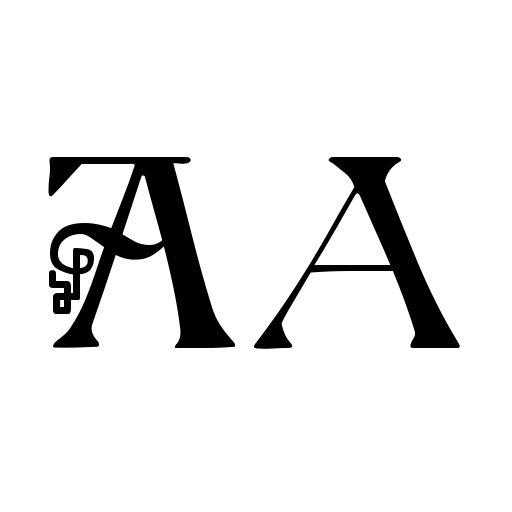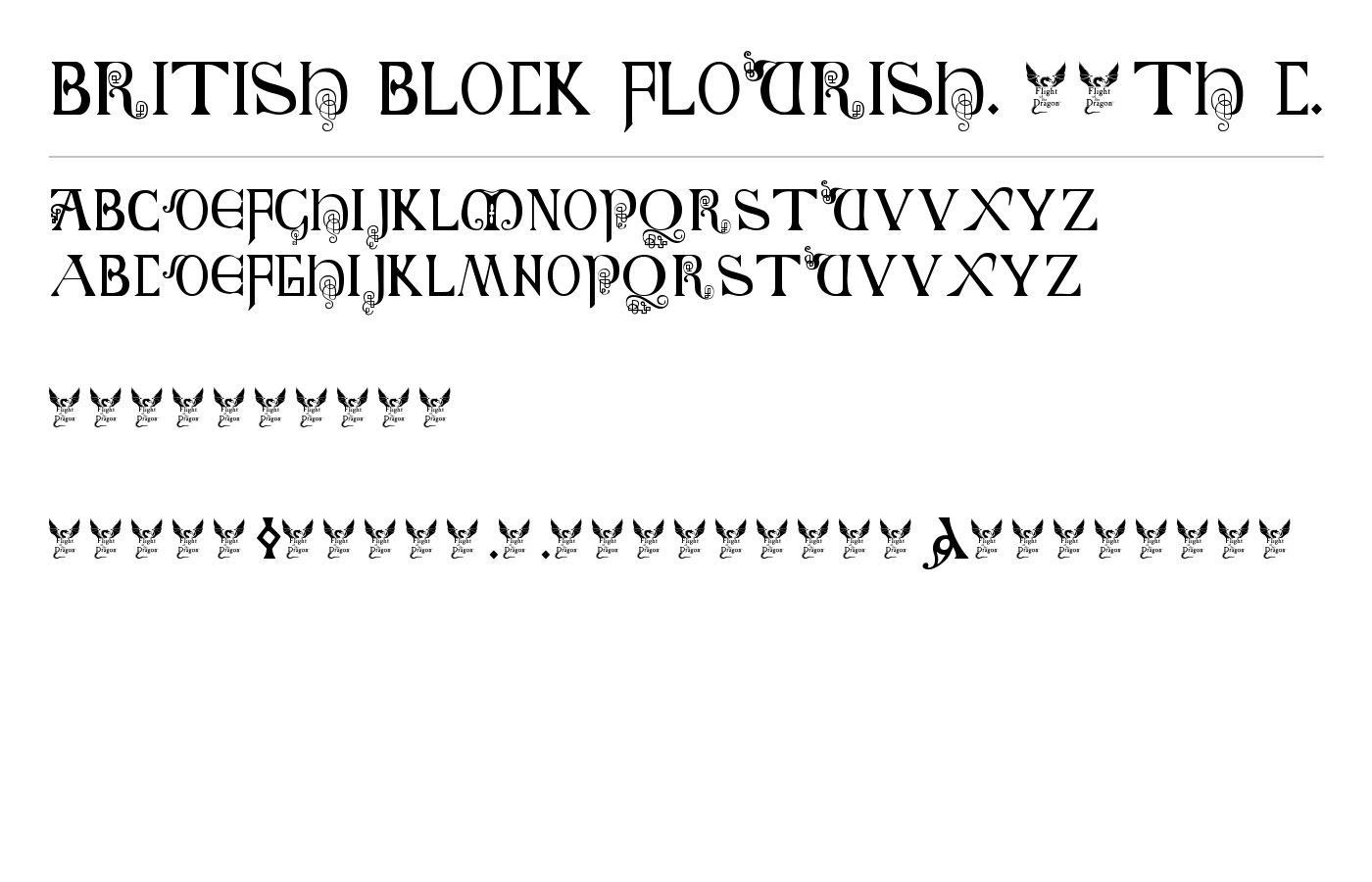
British Block Flourish is a decorative serif font inspired by 10th-century calligraphy, featuring elegant, sharp serifs with intricate, swirling flourishes that add a historic and artistic touch. With its tall, narrow letterforms and medium contrast strokes, it conveys a vintage and formal personality, making it ideal for use in logos, invitations, or branding that seeks to evoke a sense of tradition and craftsmanship. This font works best in headings or display settings where its ornamental details can be fully appreciated without compromising readability.
British Block Flourish, 10th c. Font
About British Block Flourish, 10th c. Font